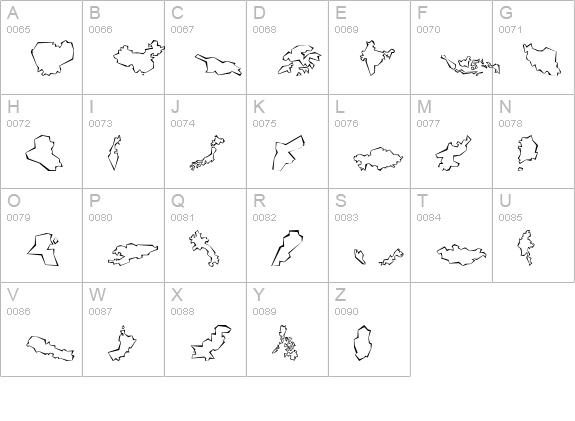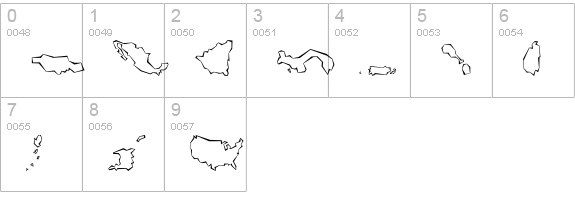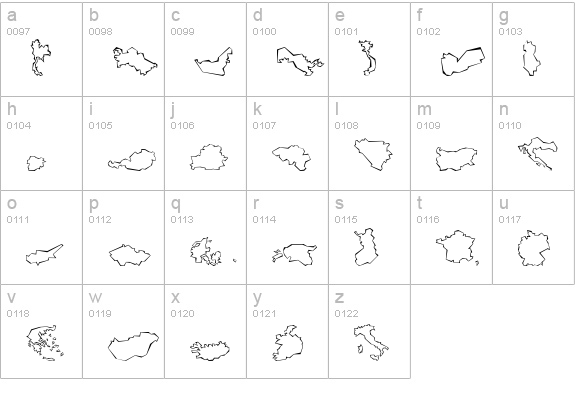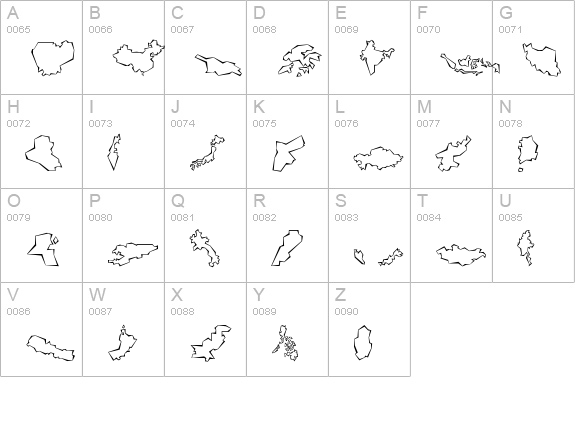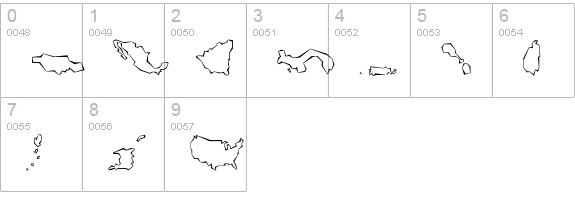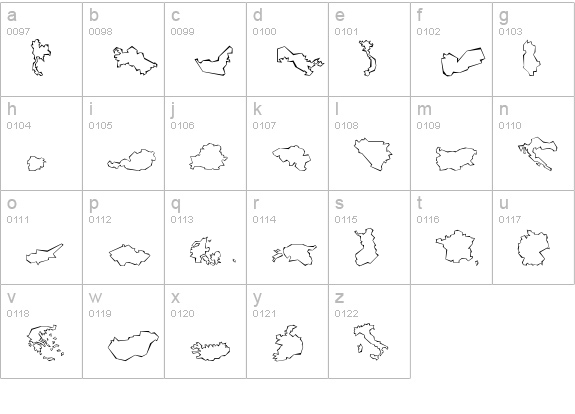
Mini Pics Global N Cutout font is a unique and eye-catching typeface that will add a touch of creativity to any design project. This font features a playful cutout style that is perfect for making a statement. Its quirky design and irregular shapes make it a versatile choice for various applications, from posters and banners to social media graphics and branding materials. What makes Mini Pics Global N Cutout font even more appealing is that it is available for free download at FontsMarket.com. This means that you can easily access and use this font in your projects without any hassle. Whether you're a professional designer looking to add a fresh look to your work or a hobbyist wanting to experiment with new fonts, Mini Pics Global N Cutout font is a great choice for adding a fun and dynamic element to your designs. Download it today and unleash your creativity with this fantastic free font!